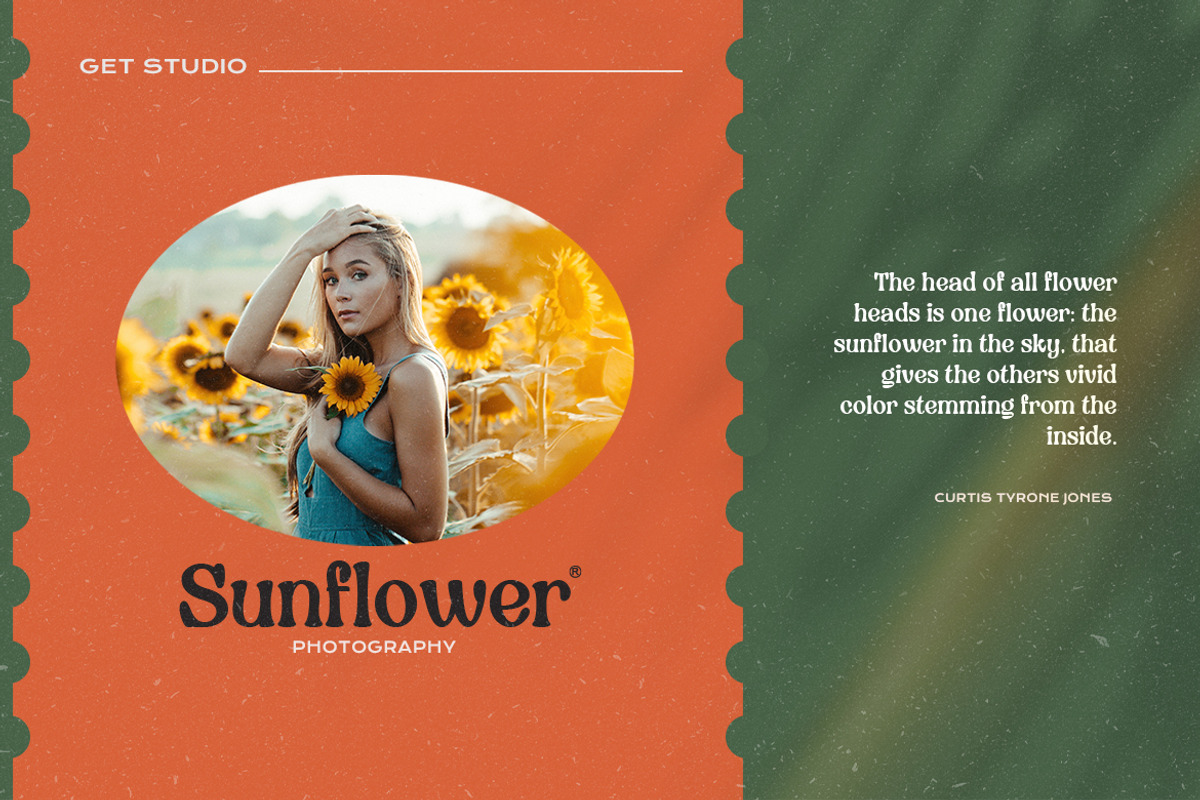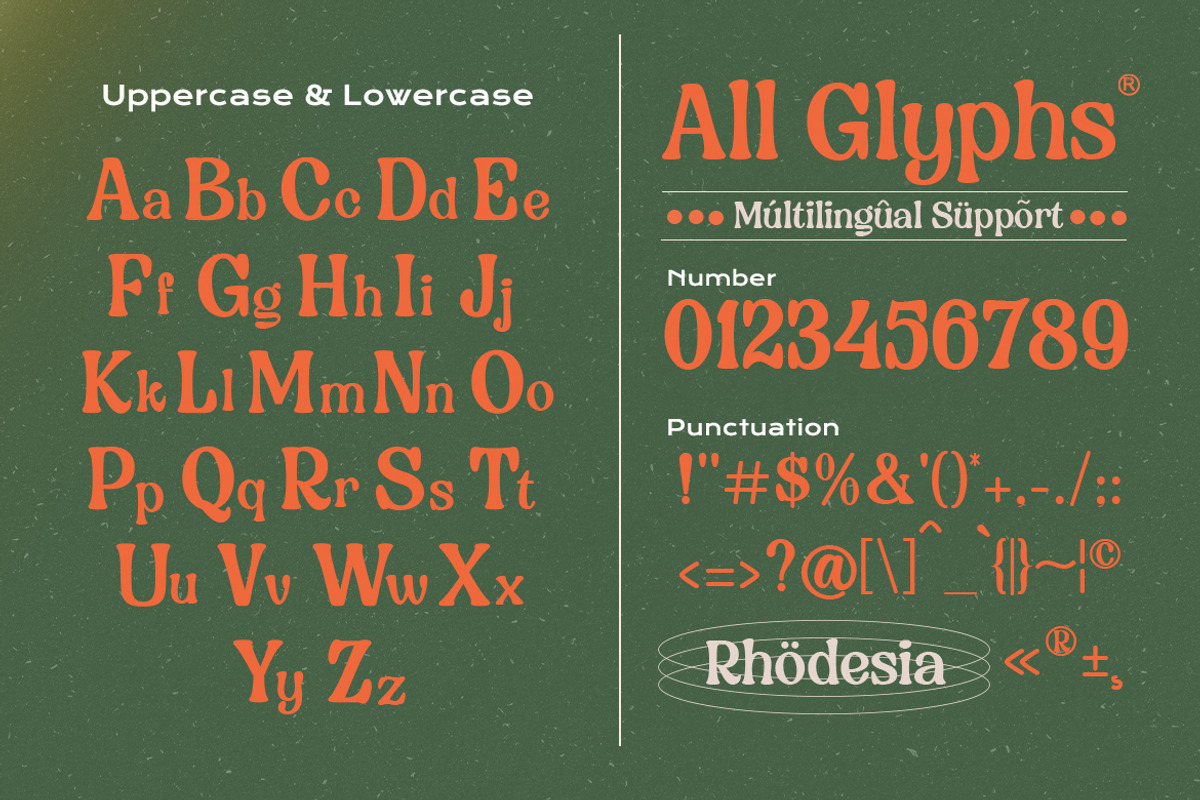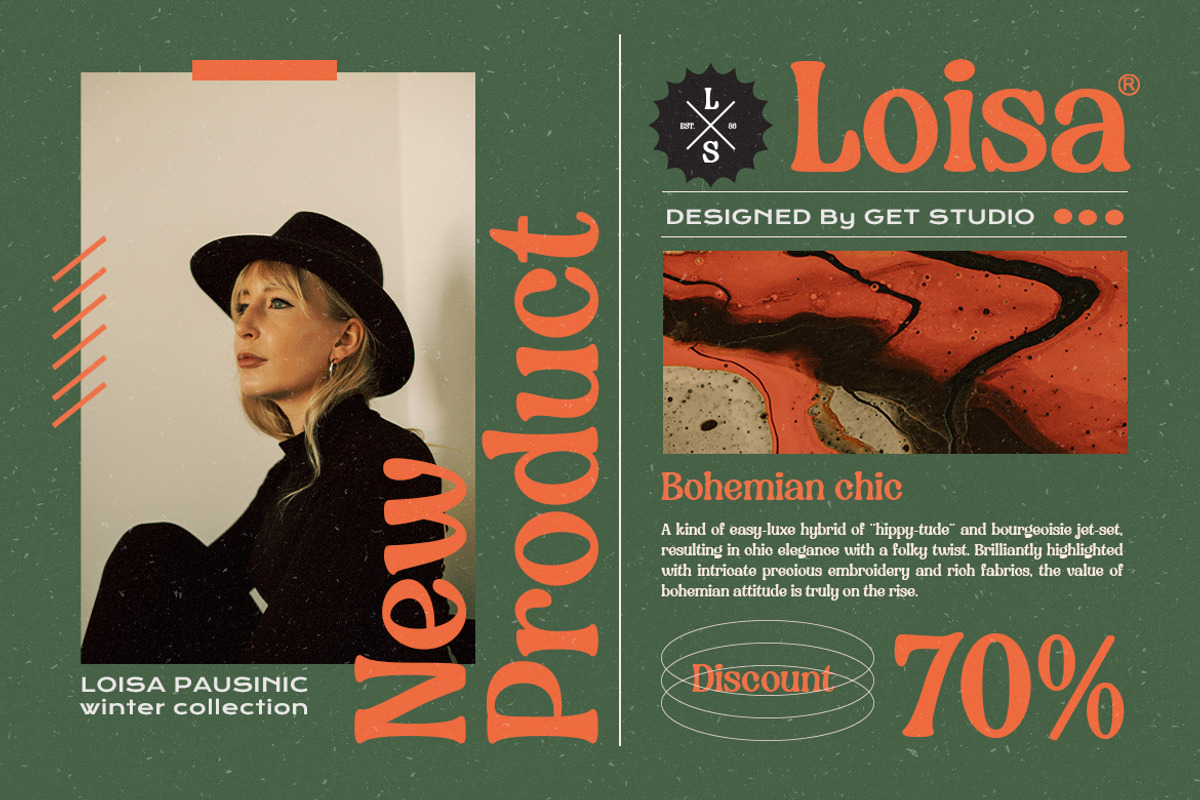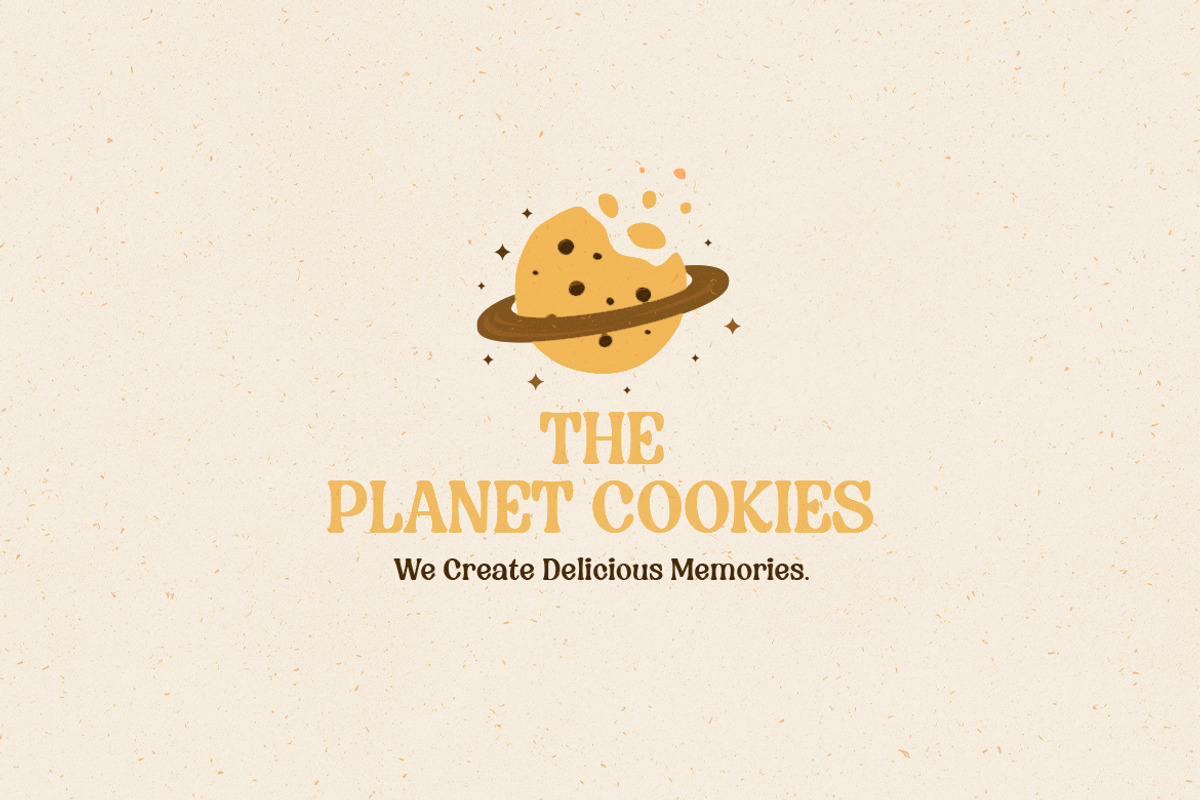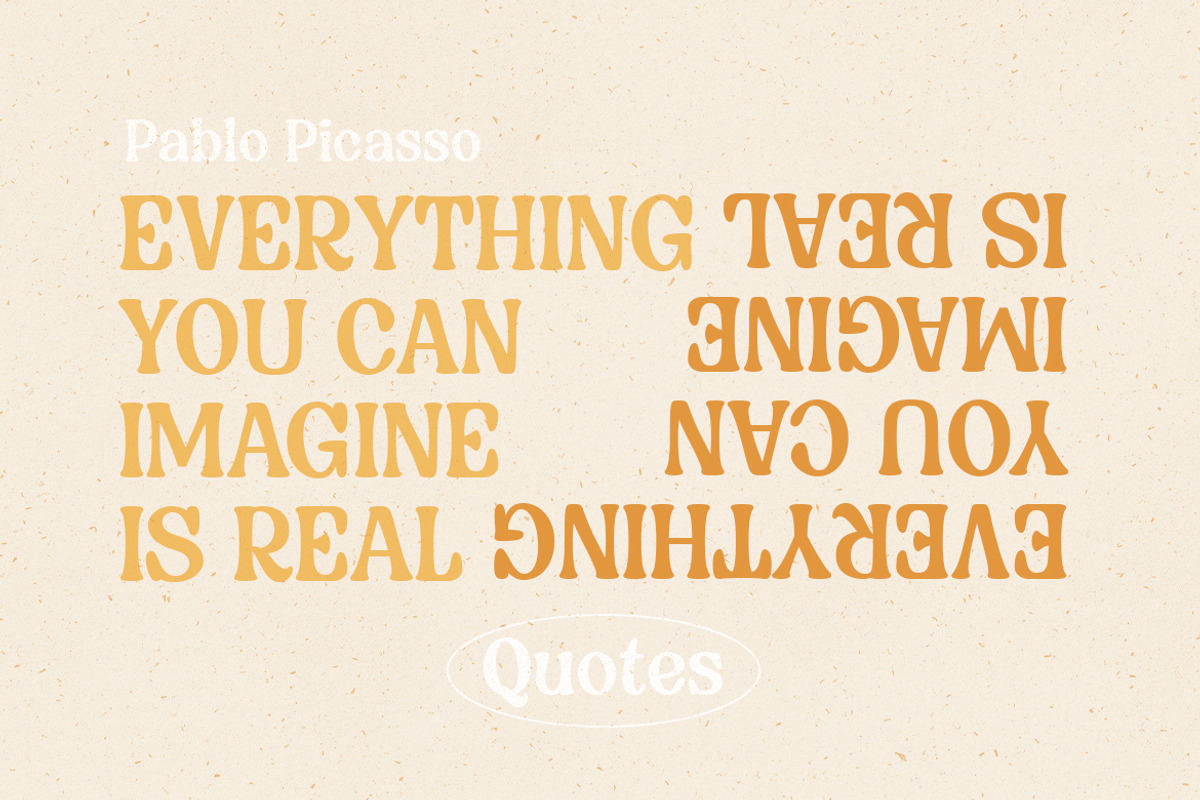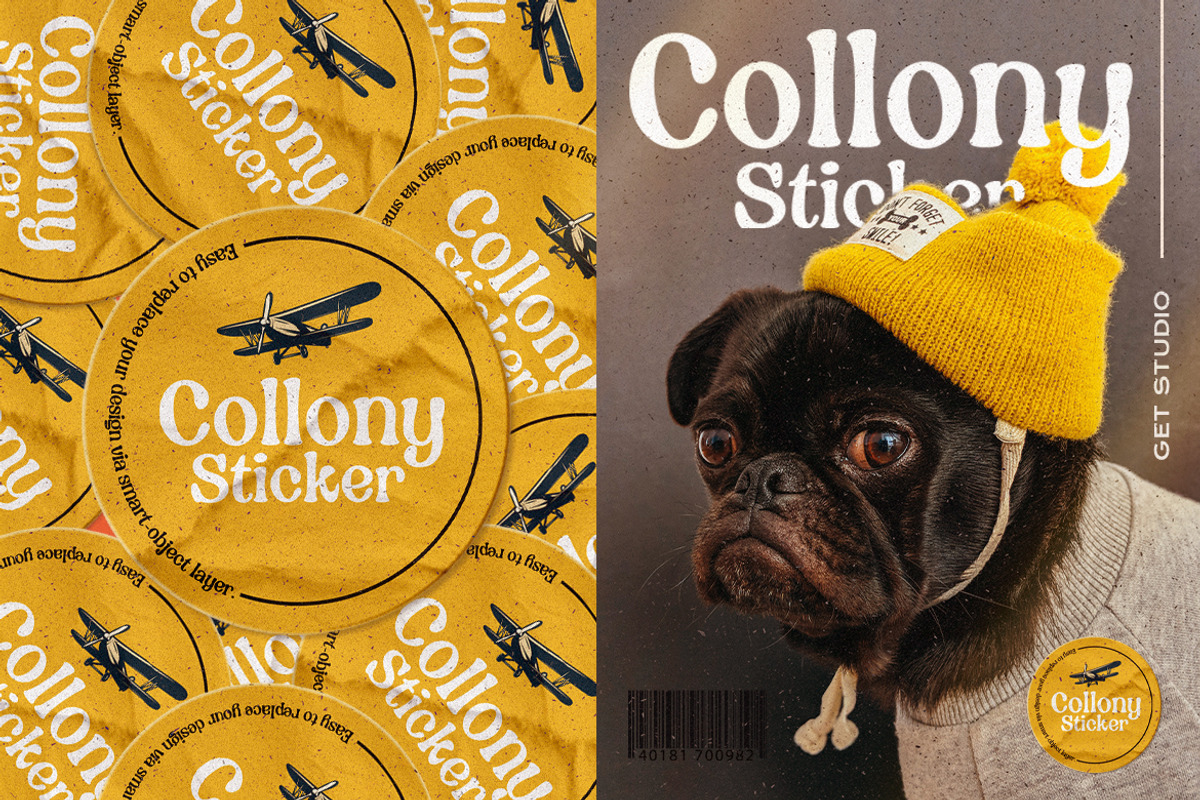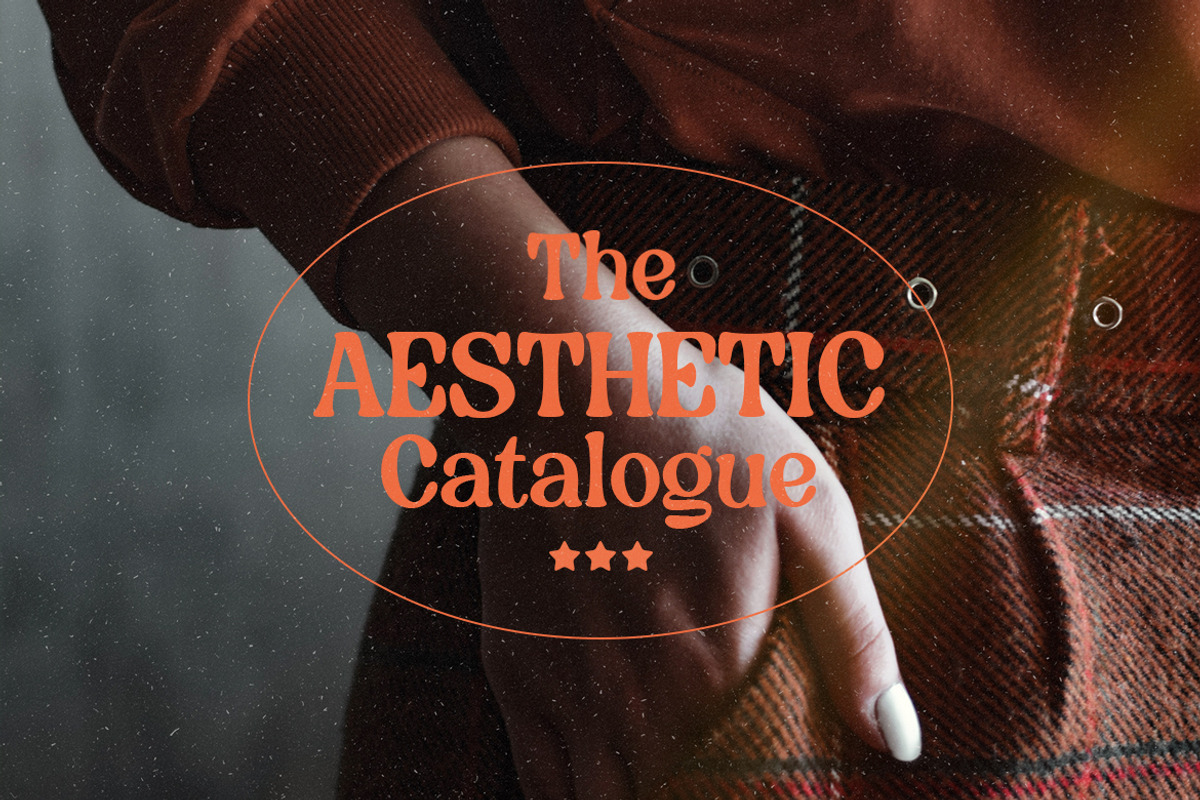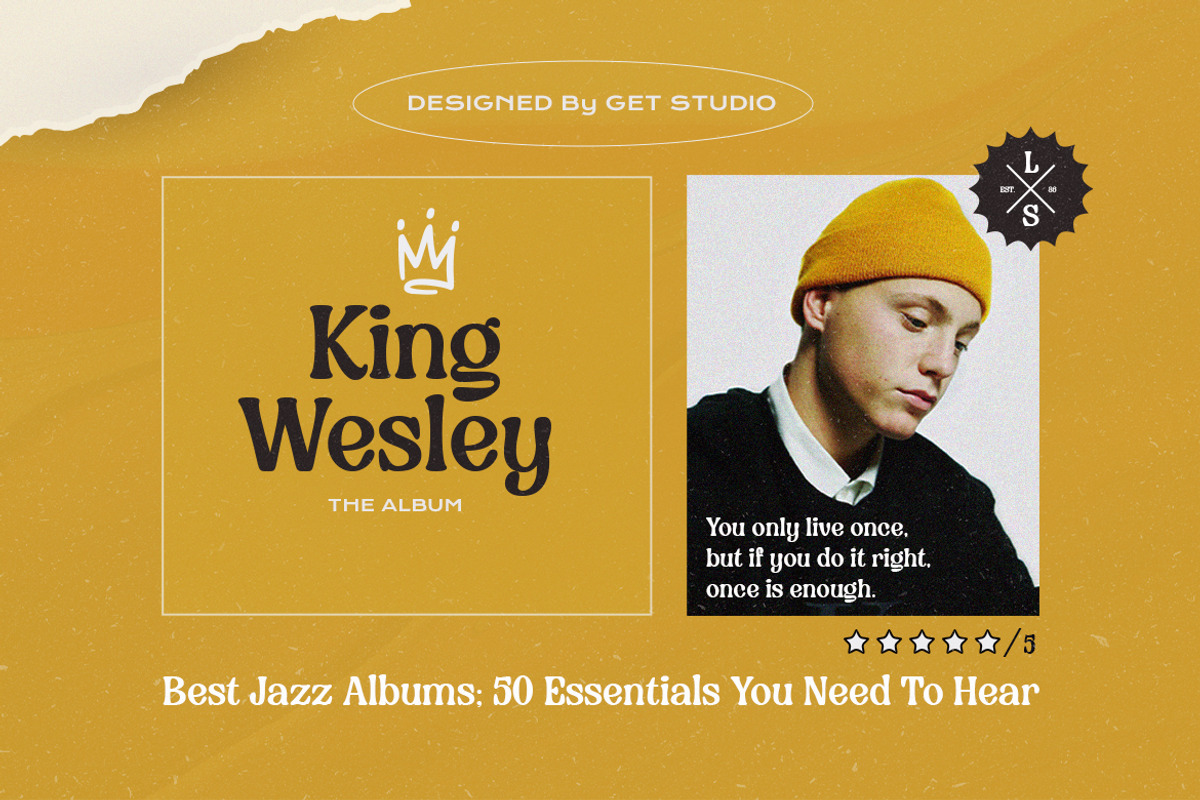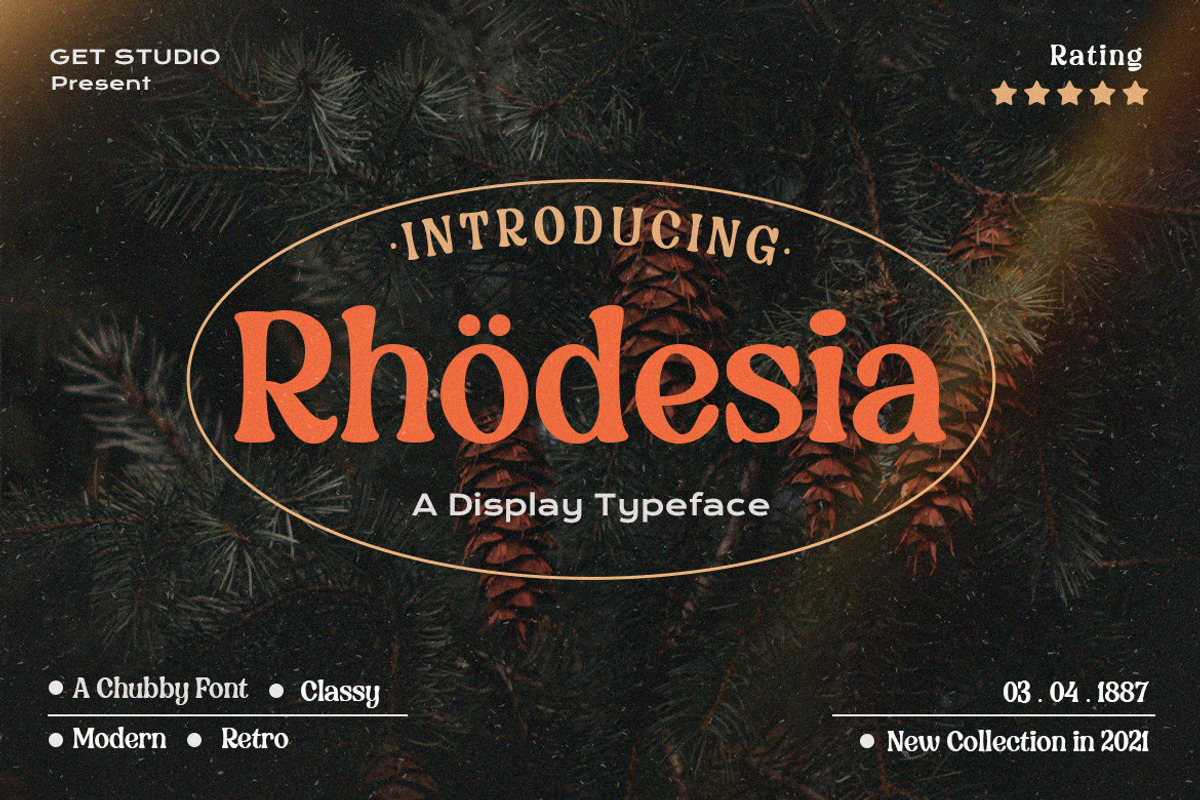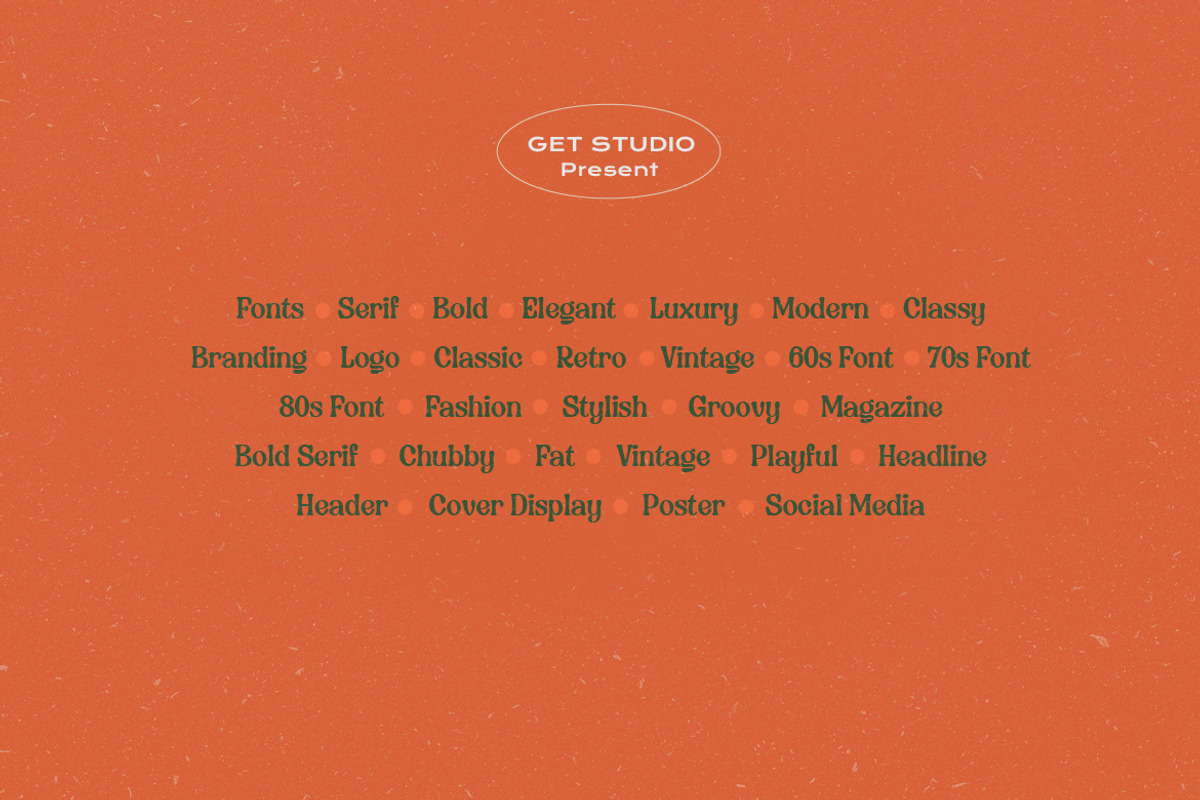
Rhodesia - Retro Serif Font
Rhodesia is classy display typeface with chubby and serif style that perfect for retro design. It come with a unique lower and uppercase plus numbers, punctuation & multilingual letters.
You can use it as a logo, badge, insignia, packaging, headline, poster, t-shirt/apparel, greeting card, and wedding invitation.